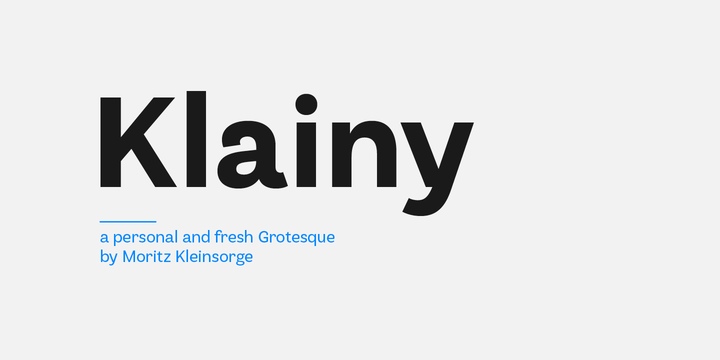
Klainy Font
Klainy Font is perfect for children's book illustrations, playful brand identities, toy packaging, educational materials, creative agency branding, casual restaurant menus, greeting cards, social media graphics, youth-oriented campaigns, and whimsical design projects.
What makes Klainy Font exciting is its charming and approachable personality that instantly creates a friendly connection with audiences. The font features playful letterforms with gentle curves and distinctive character that brings warmth and joy to any design project. Its carefully crafted details balance professionalism with accessibility, making it perfect for brands that want to communicate friendliness, creativity, and approachability while maintaining readability and visual impact across various applications.
Klainy Font family includes multiple weights such as Light, Regular, Medium, and Bold variations, often accompanied by playful alternates and decorative elements. The family may feature special characters, ligatures, and stylistic variations that enhance the font's versatile nature, providing designers with comprehensive options for creating engaging typographic compositions and dynamic visual hierarchies.